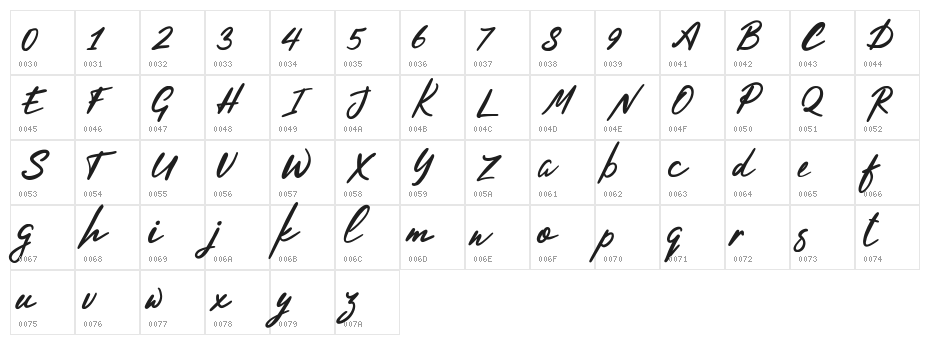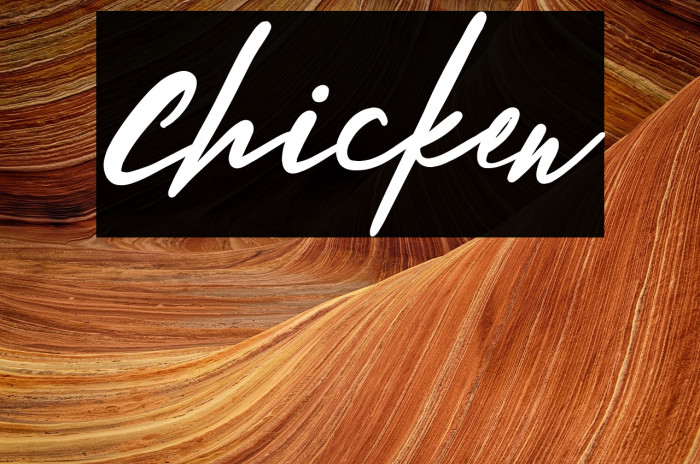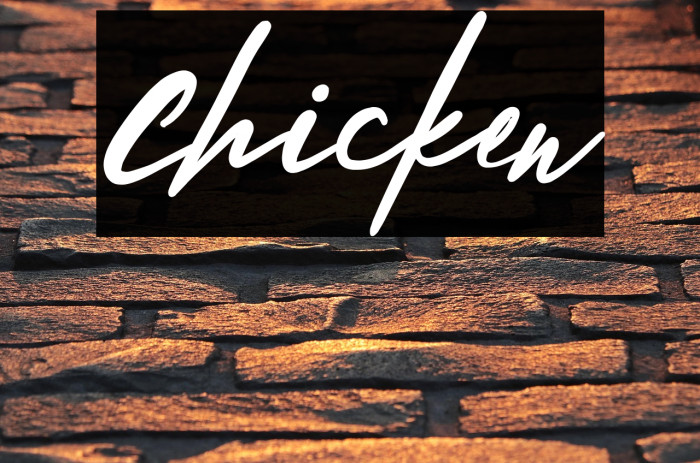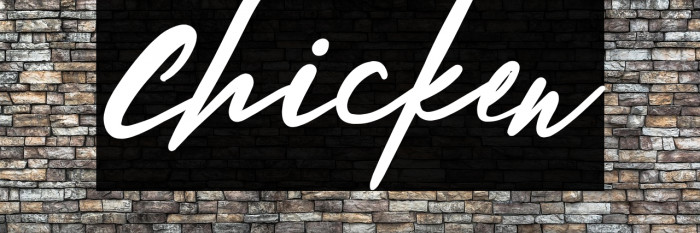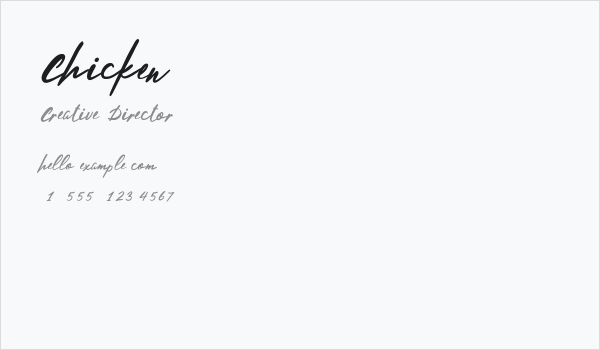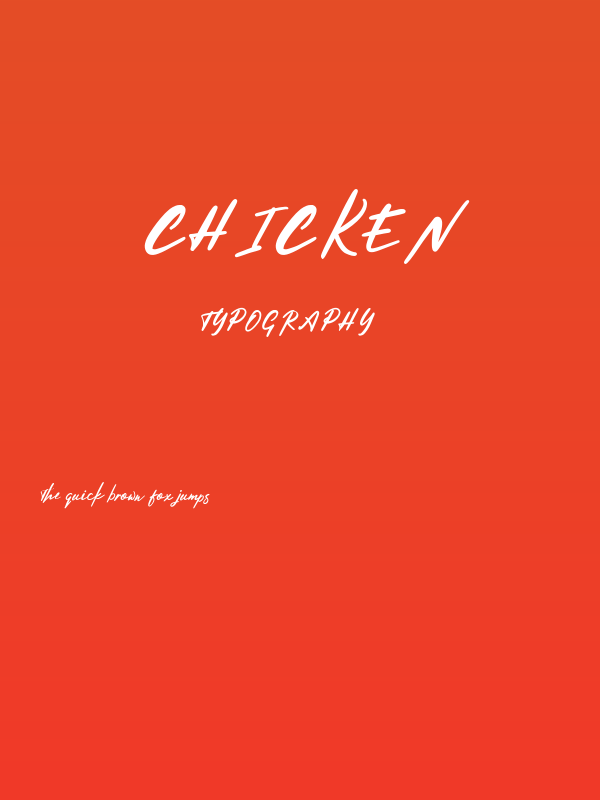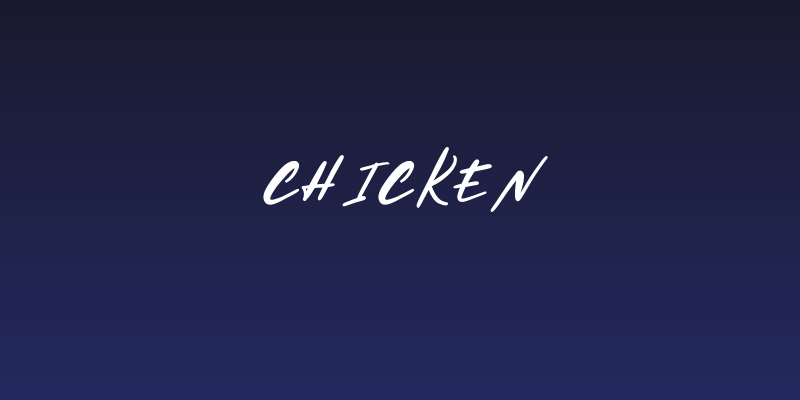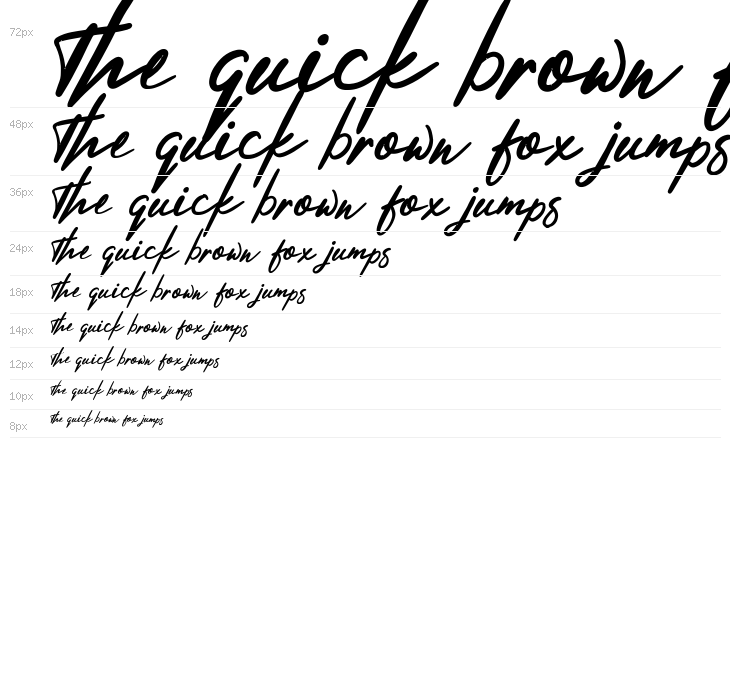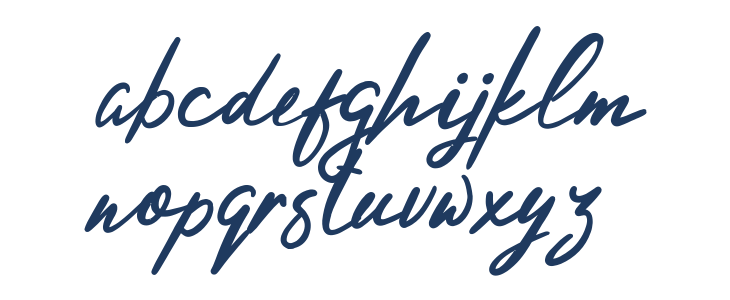
Chicken Font
Chicken Description
This font exudes a lively and dynamic energy, characterized by its cursive, handwritten style. The letters are connected with smooth, flowing strokes that mimic natural handwriting, giving it an authentic and personal touch. The uppercase letters maintain a consistent height, while the lowercase letters feature elegant loops and curves. The numerals are distinct yet harmonious with the overall style, ensuring readability. This font's playful and informal nature makes it ideal for projects that require a personal or creative flair.